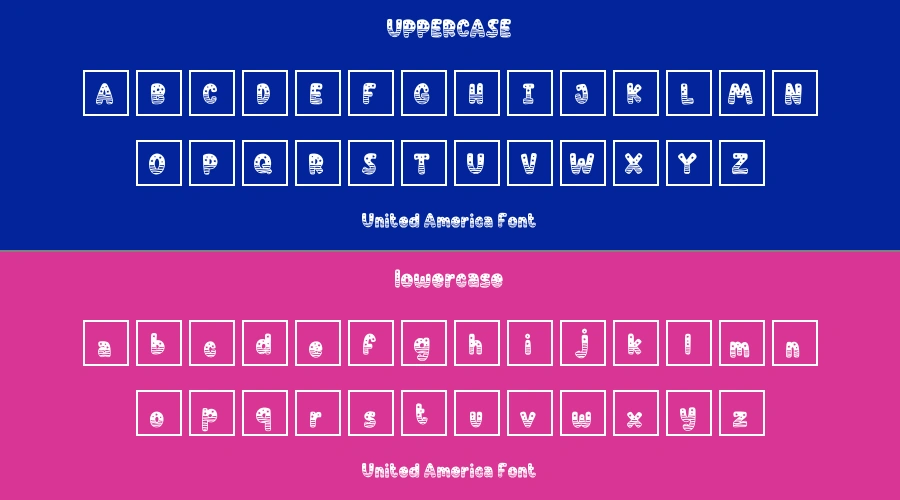
About United America Font
When typographic excellence matters most, United America Font delivers through its thoughtful blend of decorative alternates and technical precision. Specially crafted for presentation decks, it offers the versatility and creative impact required for sophisticated design work. Every detail serves a purpose.
The character set showcases thoughtful details like ornamental details alongside functional stylistic sets. This proves especially valuable in specification lists, where emotional response directly influences results. Particular attention was paid to letterfit and scientific authority during development.